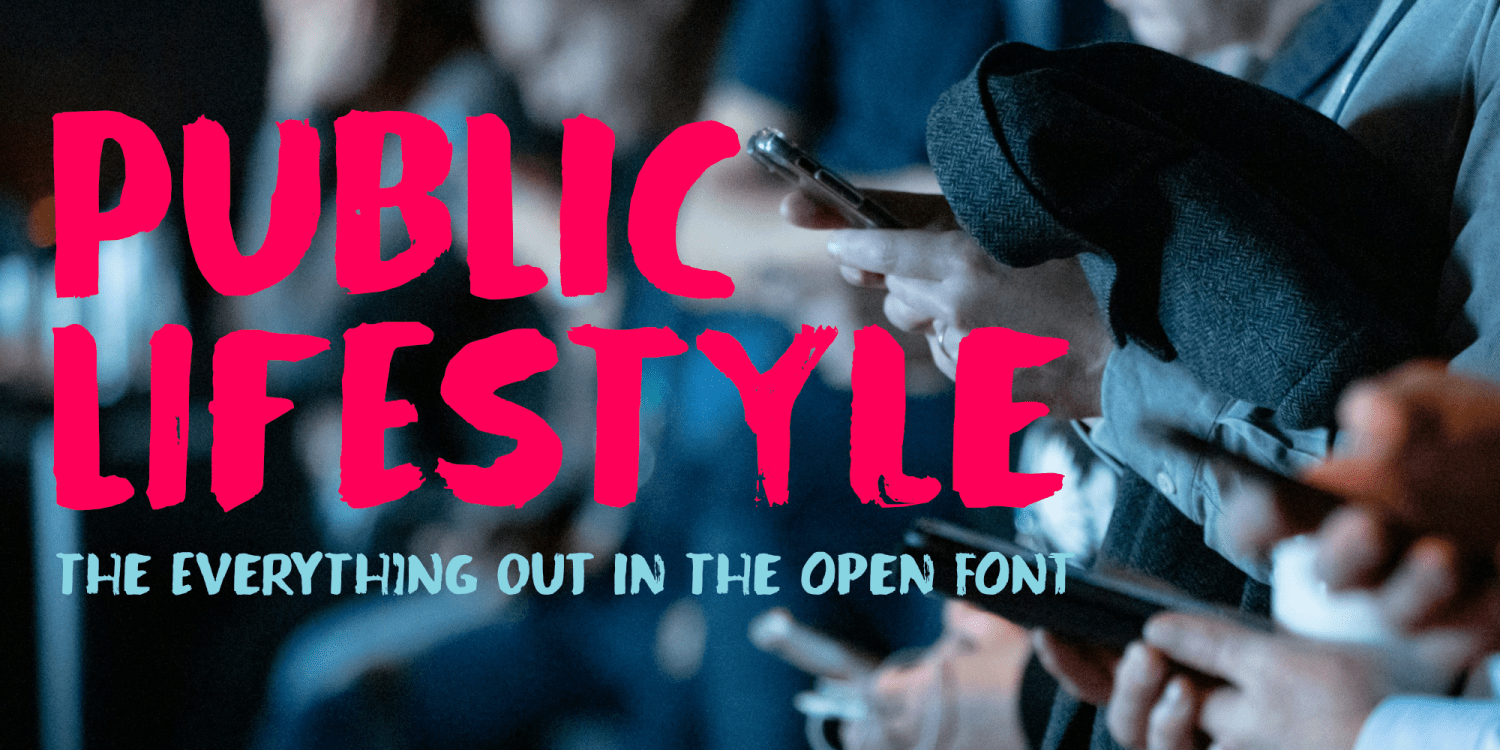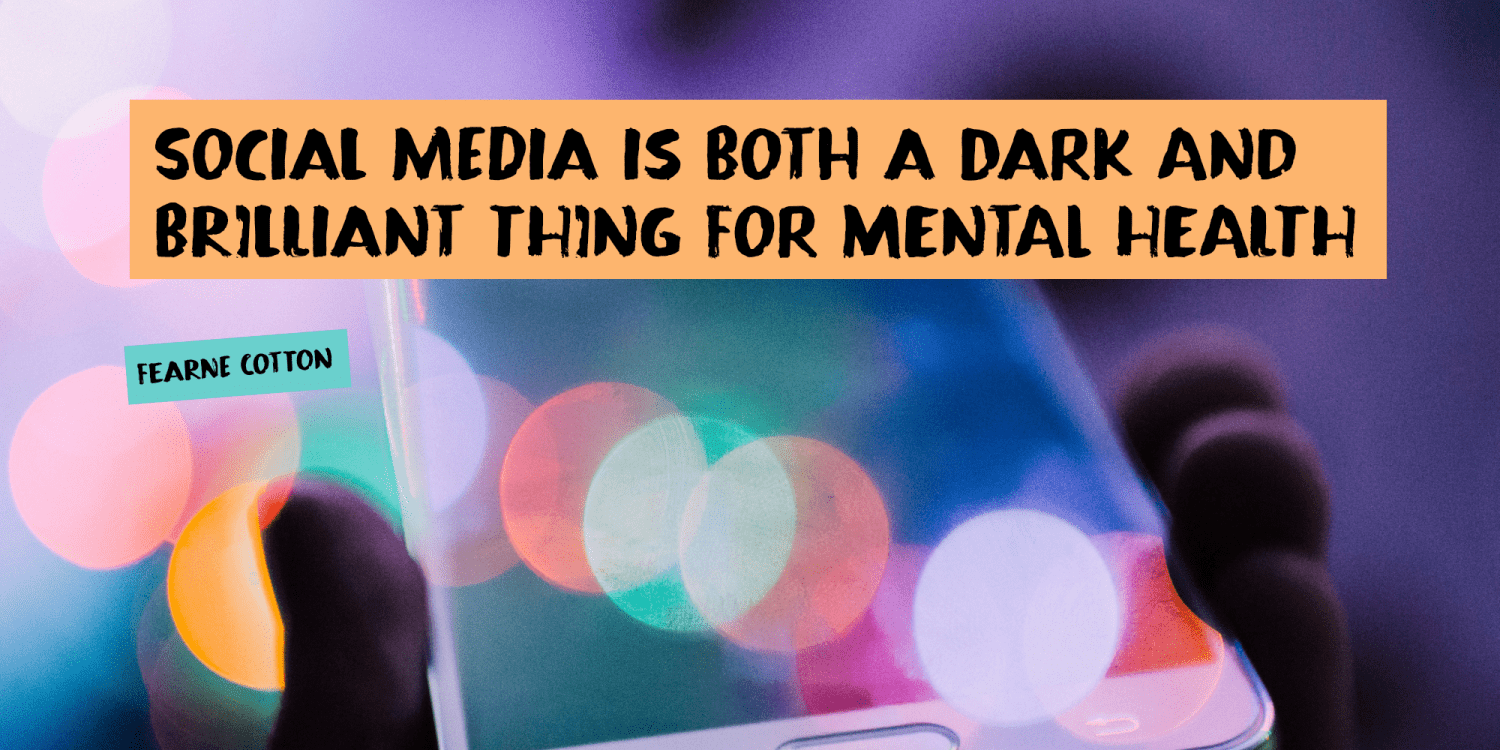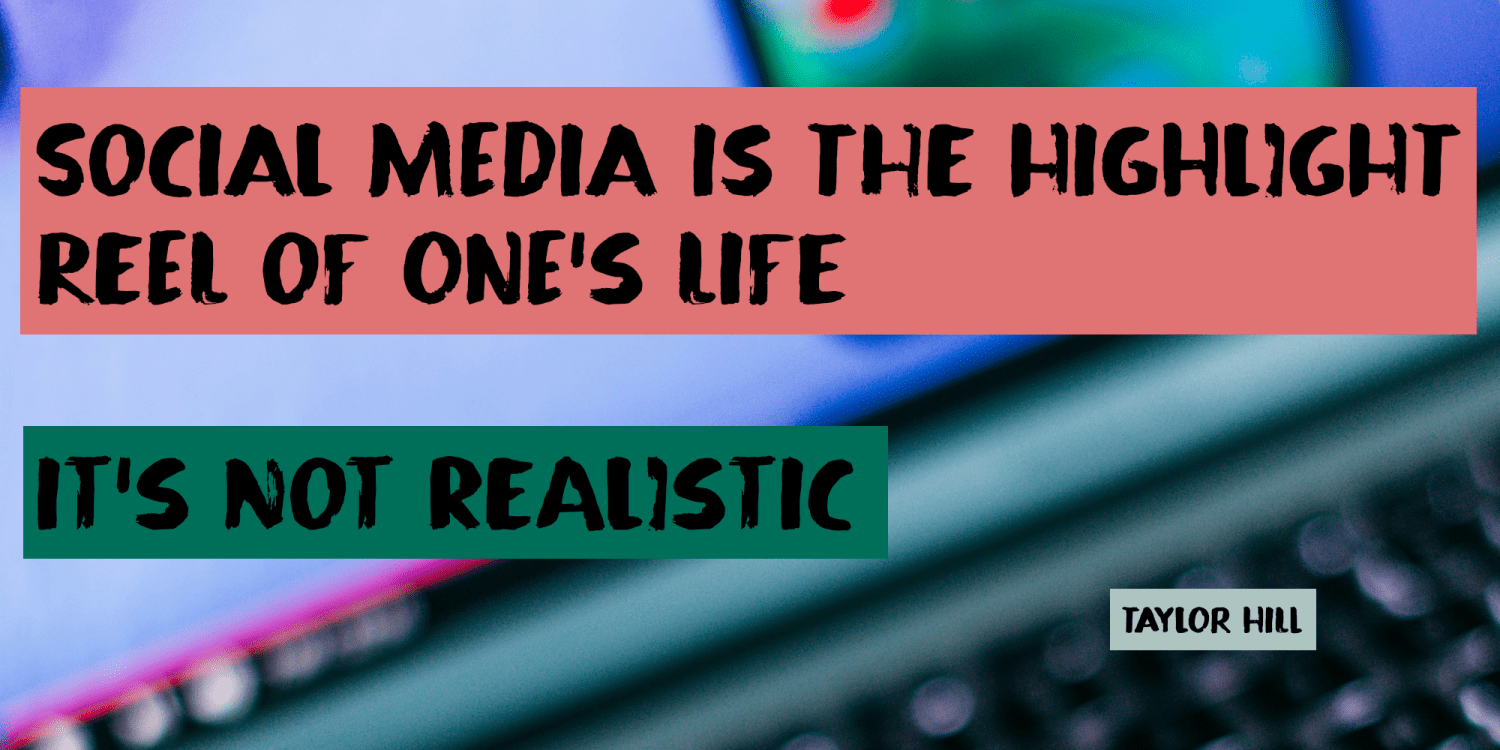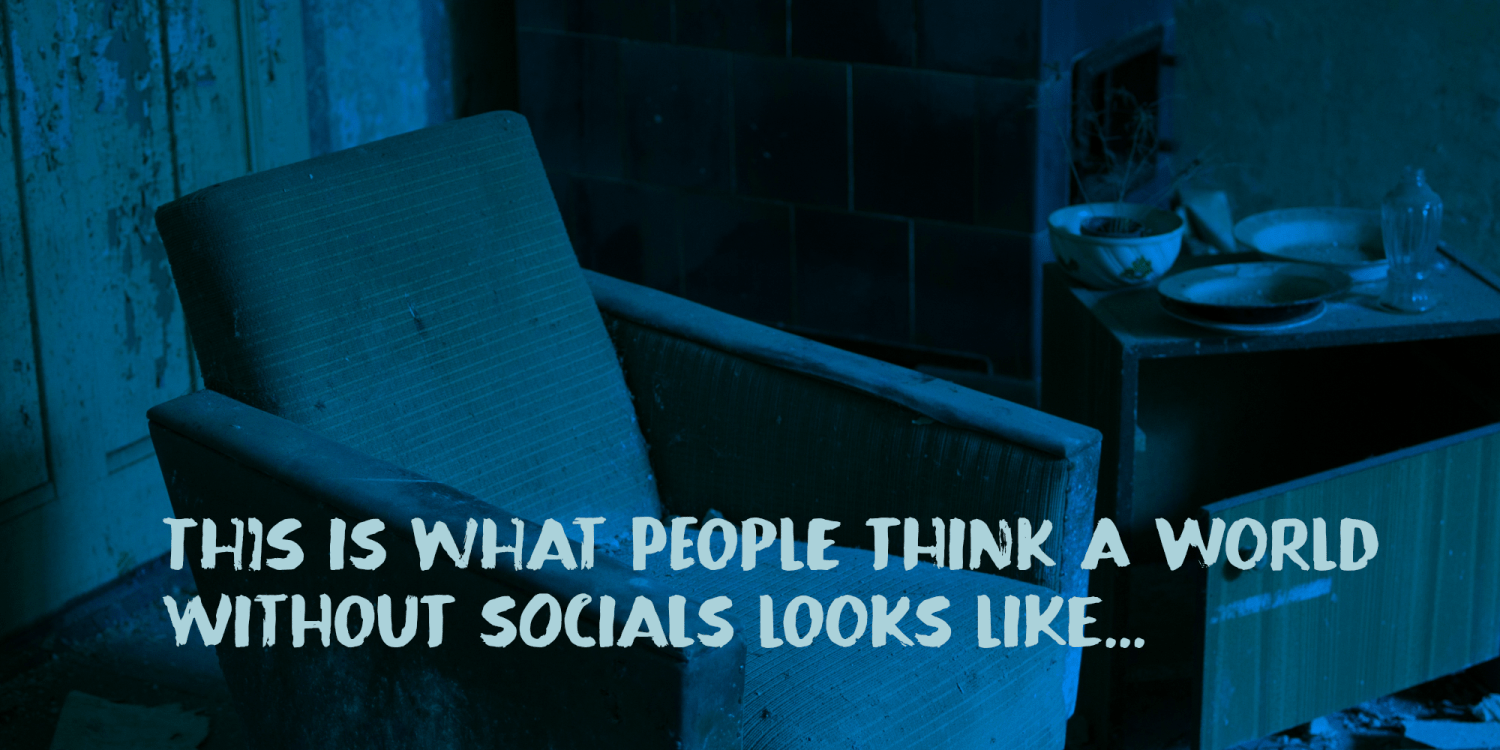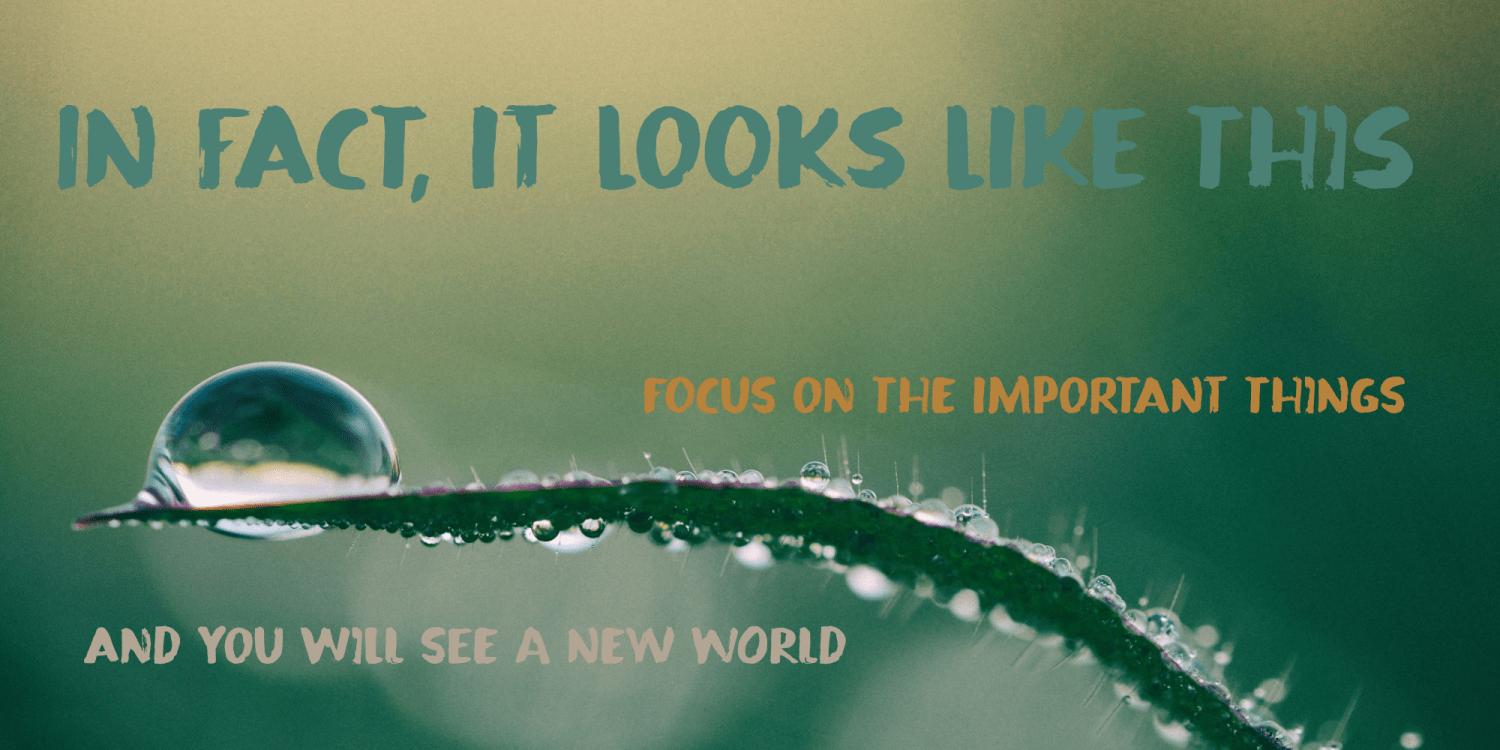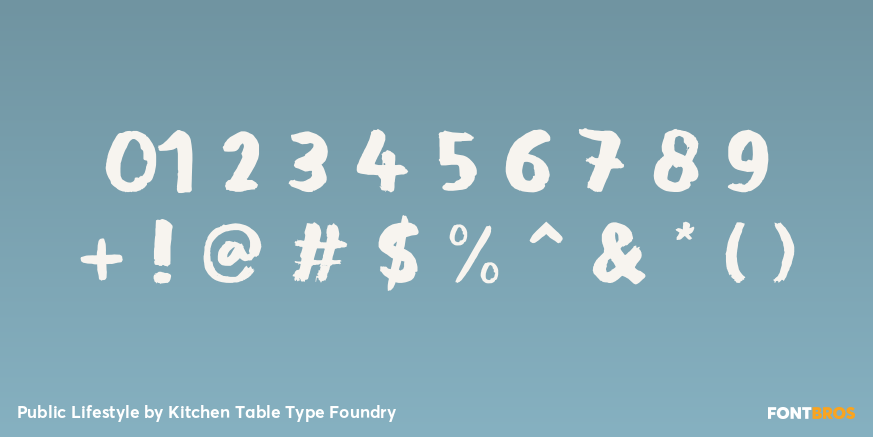
Public Lifestyle
I buy and sell of a lot of things on the second hand marketplace. One day I sold something and the person who bought it had an interesting name, so I decided to see what I could find out about him. Within 5 minutes of searching the internet, I found out where he lived, who his friends were, what his girlfriend looked like (and her friends too). I knew where he lived, his job, his previous jobs. I knew where he went on holiday and what he liked to eat. This guy hadn’t shielded any information; it was all public!
I tell my kids to be careful with what they put on the internet. It’s ok to tell a little bit about yourself, but if people really want to know you, they can meet you in person!
Public Lifestyle is an ‘all out in the open’ kind of font. It was made using ink and a brush. It is fat, flamboyant and very loud. Use it for whatever you like!